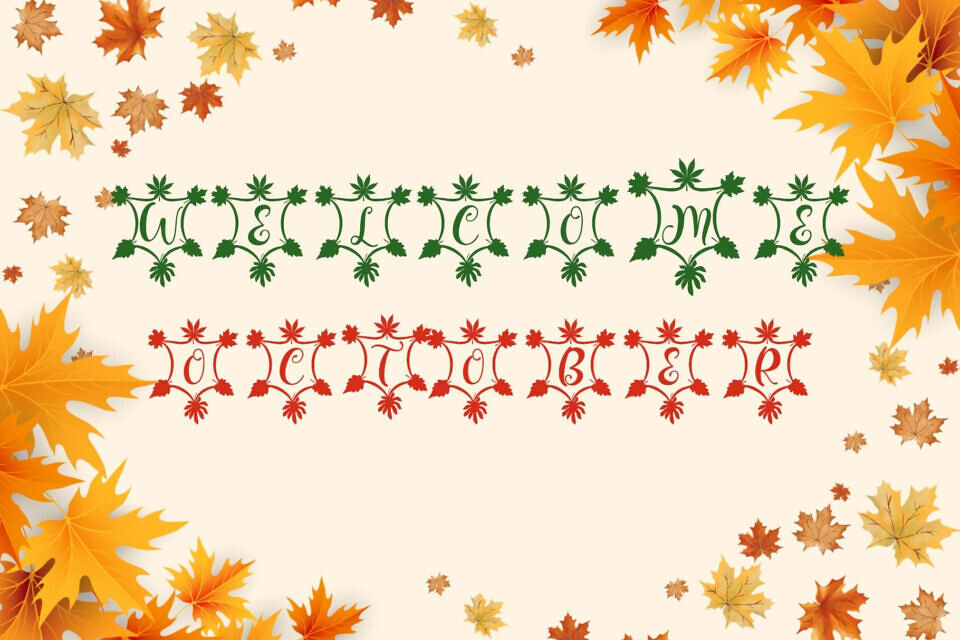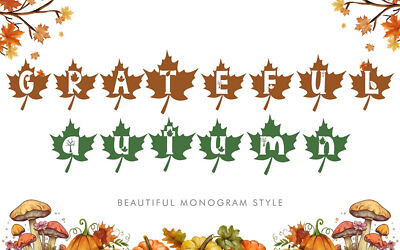
Dainty Autumn is a beautiful and elegant decorative monogram font. It features uppercase and lowercase letters, numerals, punctuation, and multilingual support. It’s perfect for fall, autumn, banners, Christmas, branding, stickers, posters, prints, logos, sublimation, Valentine’s Day, Thanksgiving, Halloween, and more.